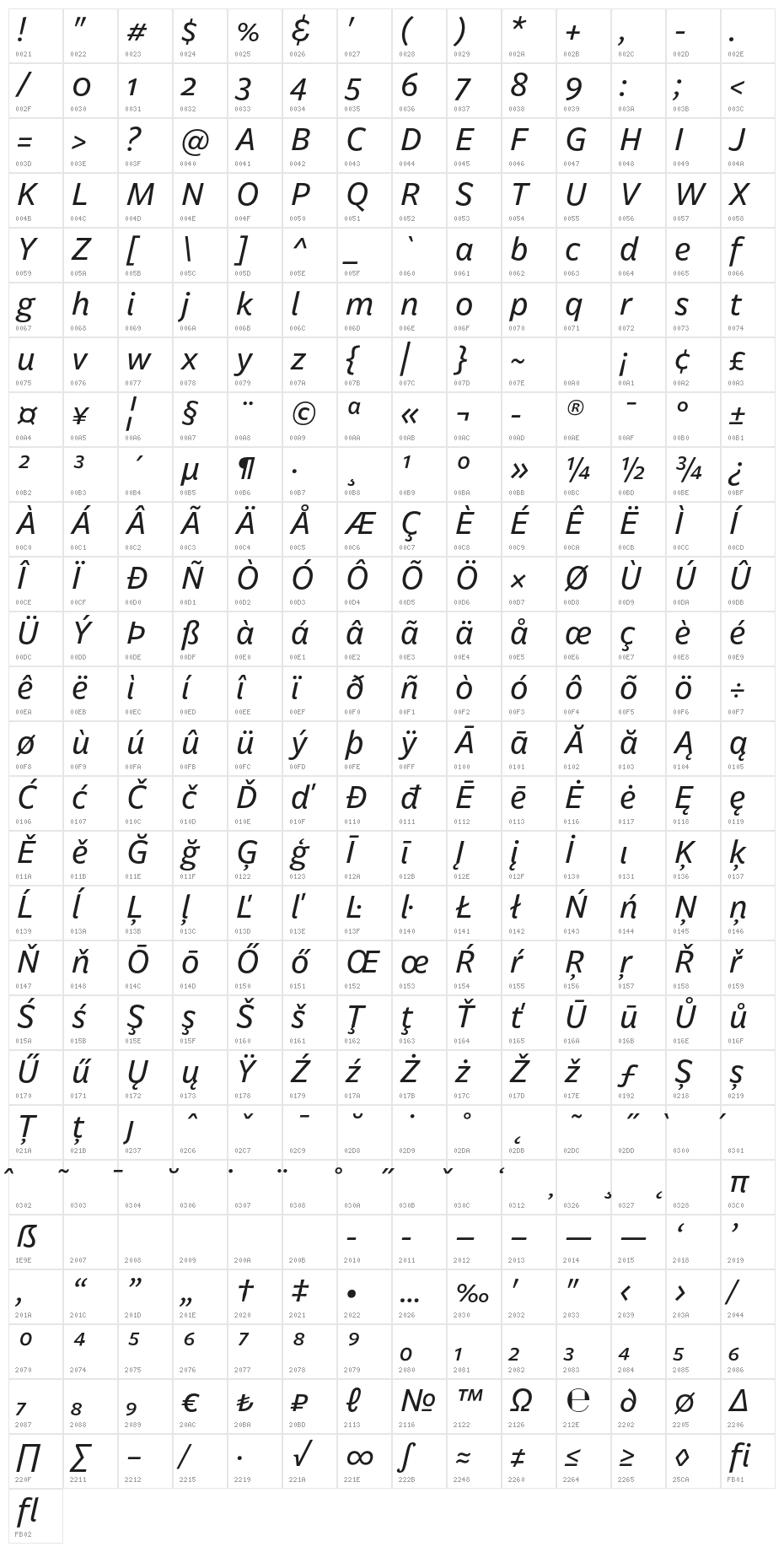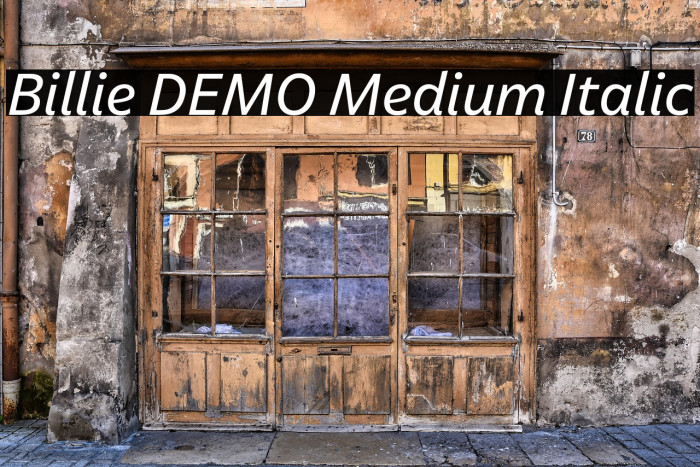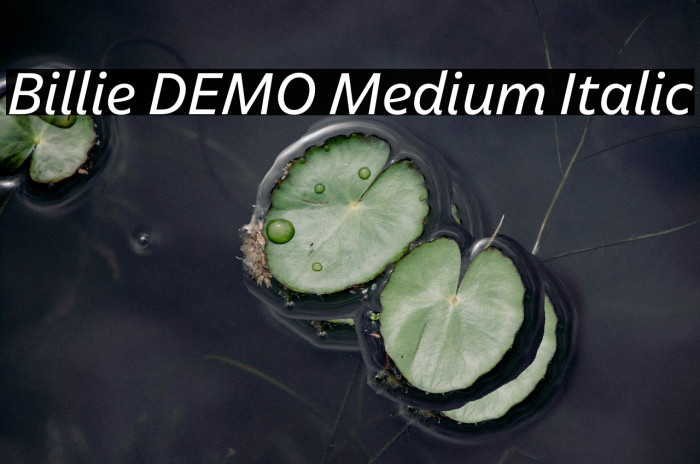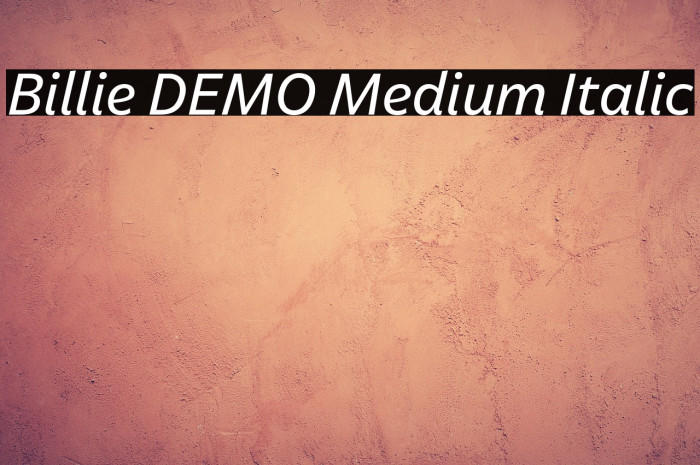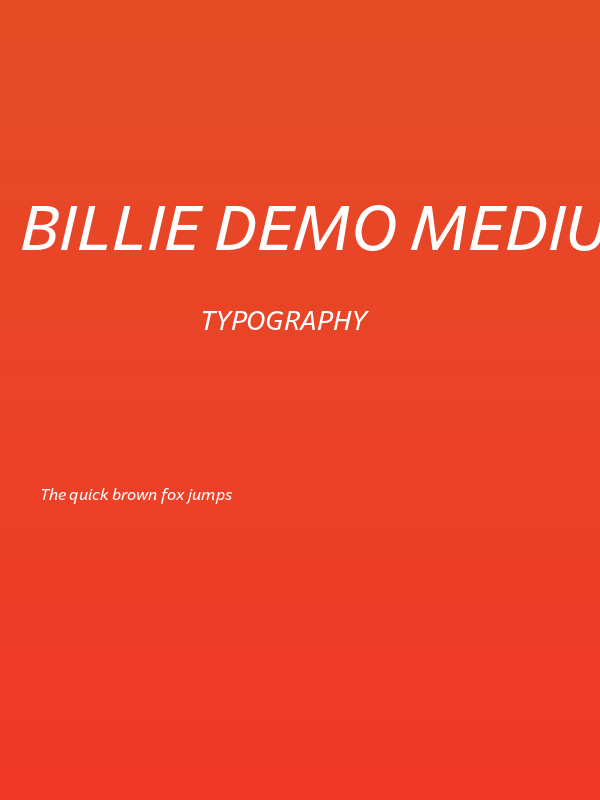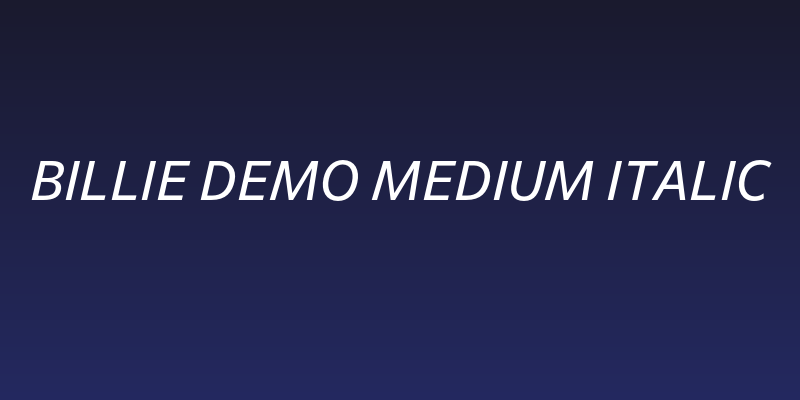
Billie DEMO Medium Italic Font
Billie DEMO Medium Italic Description
This font exhibits a modern and sleek design with a medium weight and italic style. The characters are slightly slanted, giving it a dynamic and fluid appearance. The strokes are consistent, with a moderate contrast that enhances readability while maintaining a stylish look. The overall design is clean and professional, making it suitable for a variety of applications. The spacing between characters is normal, ensuring clarity and legibility. This font's elegant curves and contemporary feel make it a versatile choice for both digital and print media.
Proposed ProjectsIdeal for branding, advertising, editorial design, and digital content where a modern and professional look is desired.